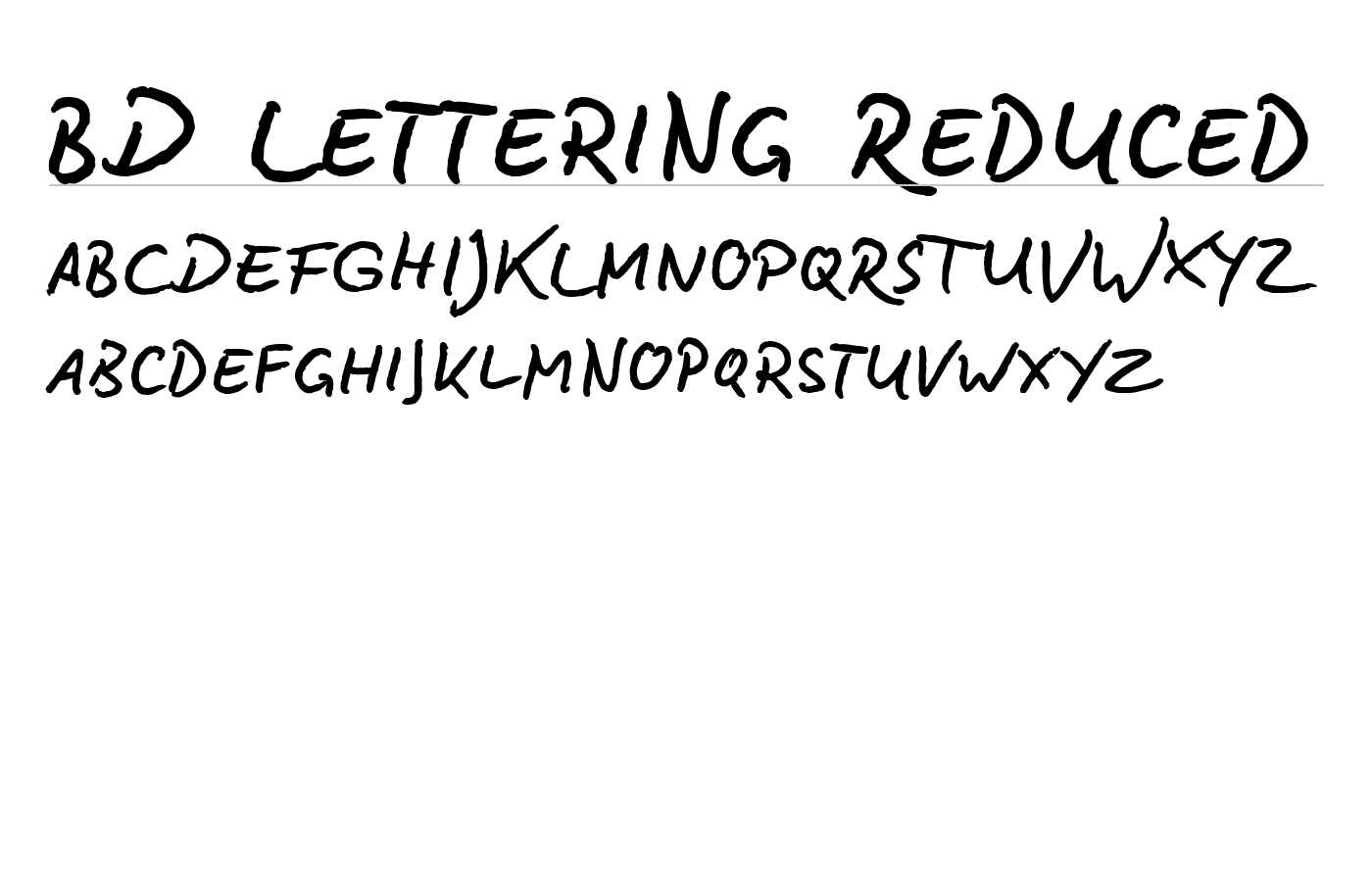
BD Lettering Font is a casual, hand-drawn script with an energetic and friendly personality. Its irregular, brush-like strokes and lively letterforms give it an informal, approachable feel, making it perfect for creative projects, invitations, and branding that seeks a personal touch. This font works well in headlines, logos, and artistic designs where a spontaneous, handwritten style is desired.
BD Lettering Font
About BD Lettering Font
| Font family | BD Lettering Font |
| Designer | Ingo Zimmermann |